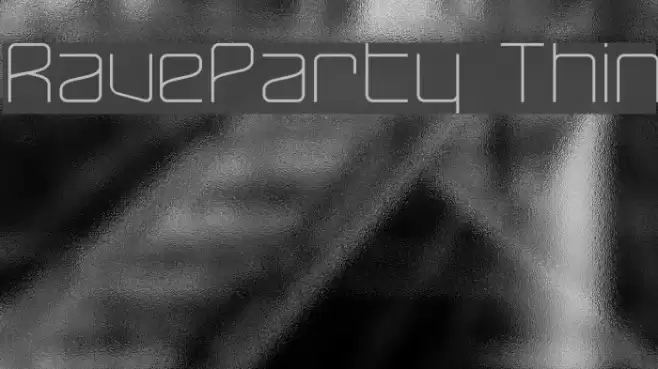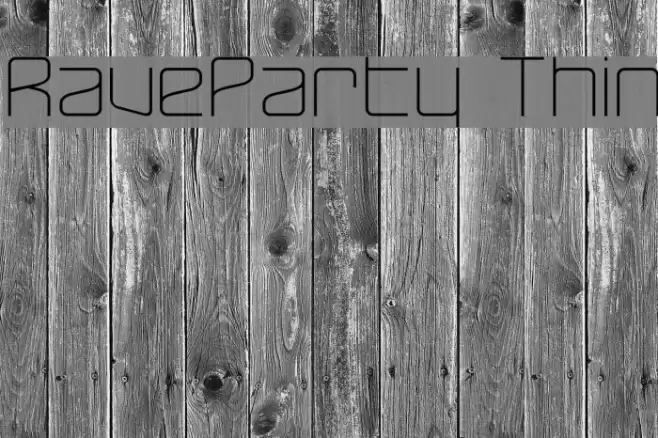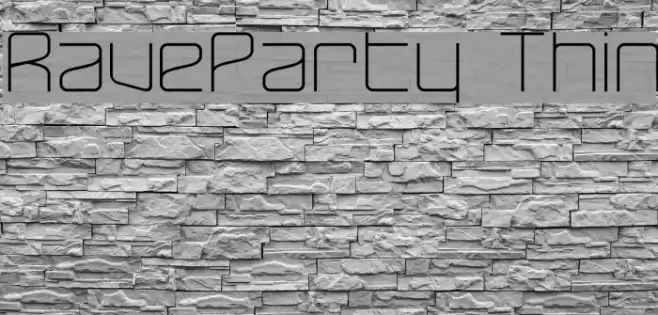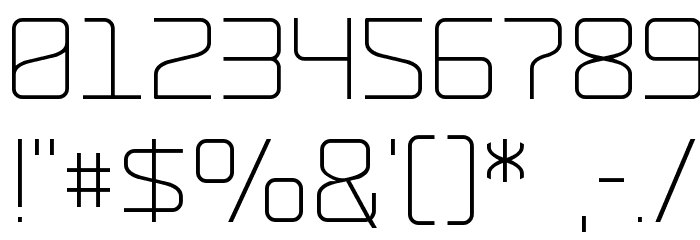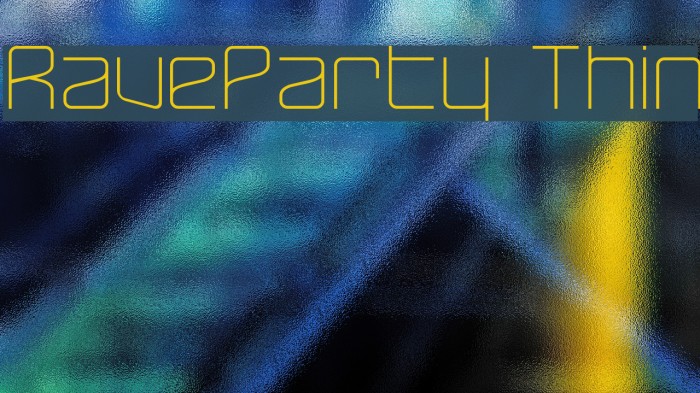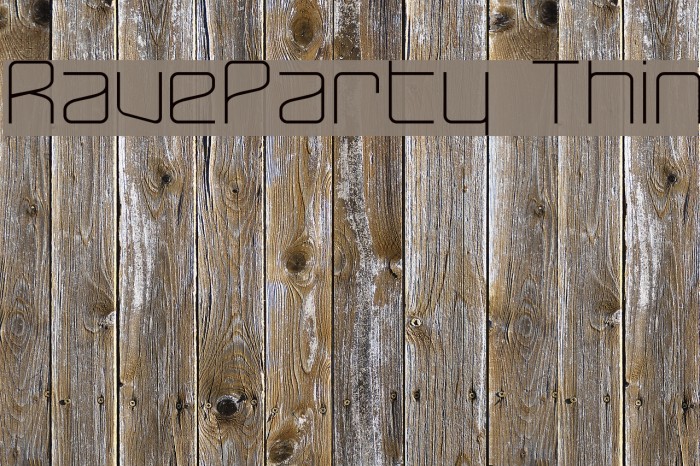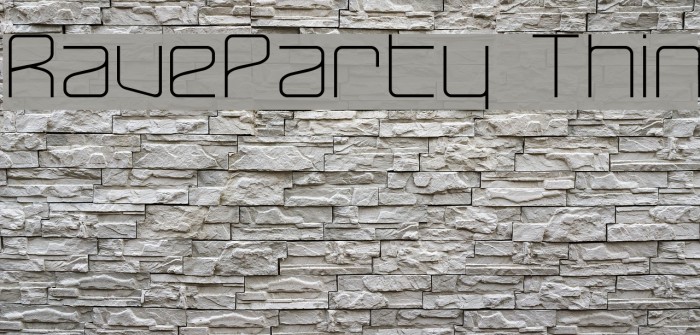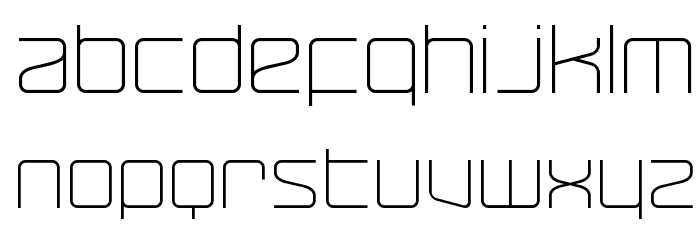
RaveParty Thin Font
RaveParty Thin Description
This font features a sleek, geometric design with a modern and minimalist aesthetic. The characters are composed of thin, uniform lines that create a clean and futuristic look. The uppercase and lowercase letters maintain a consistent height, contributing to a balanced and harmonious appearance. The numerals and special characters are designed with the same precision, ensuring a cohesive style throughout. The font's simplicity and clarity make it highly legible, while its unique structure adds a touch of sophistication.
A sleek, geometric font with a modern, minimalist design from Uncategorized fonts.
- Proposed Projects: Ideal for tech branding, modern advertising, digital interfaces, and futuristic design projects.
- Use Case: Headlines, Logos, Digital interfaces